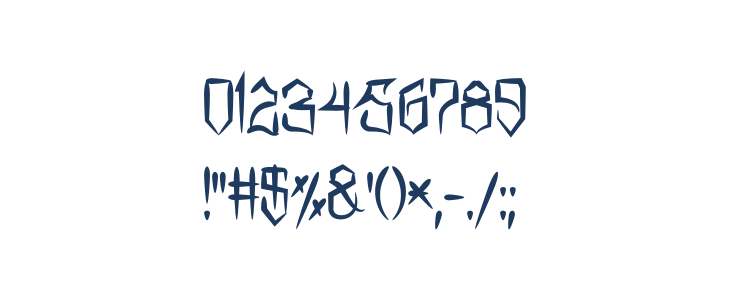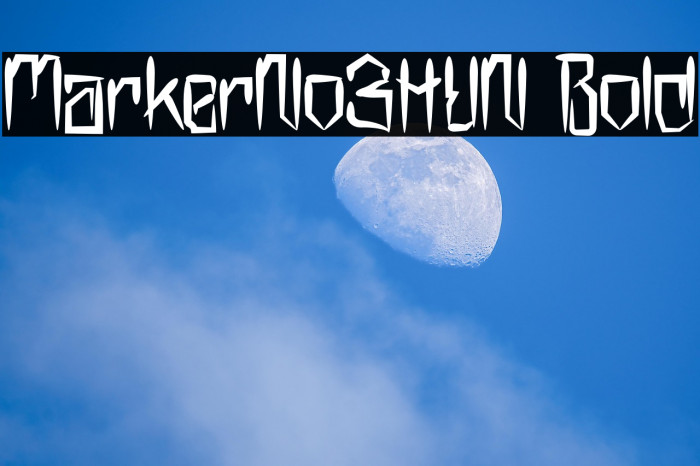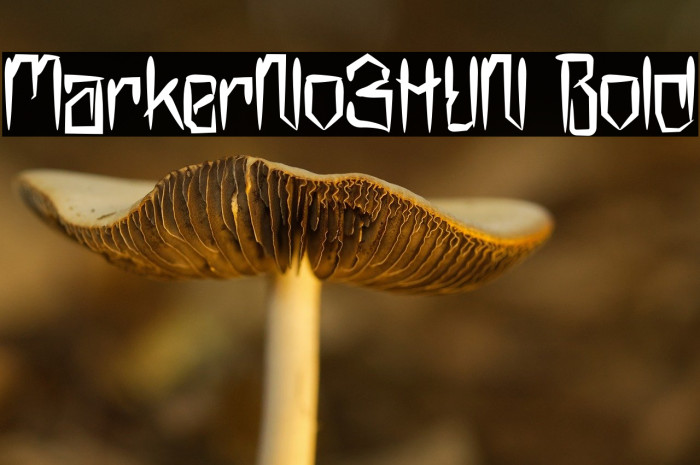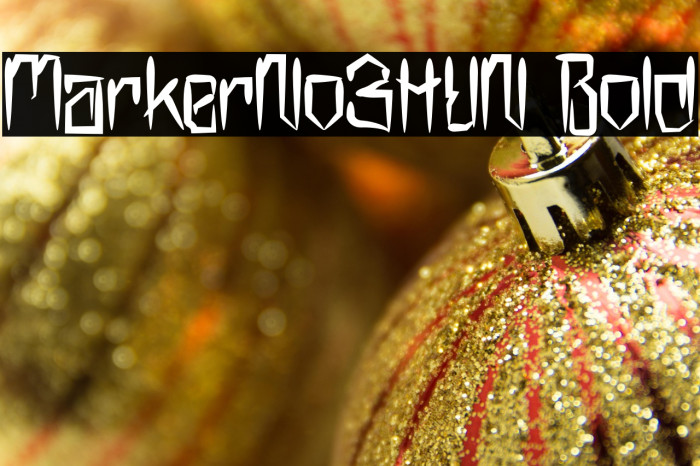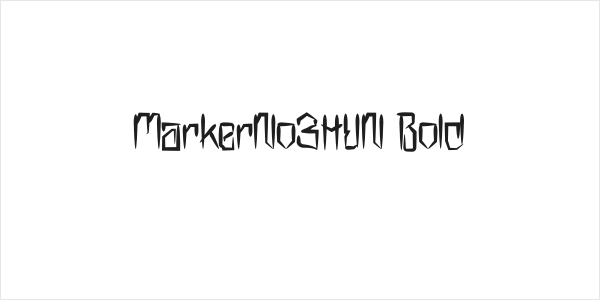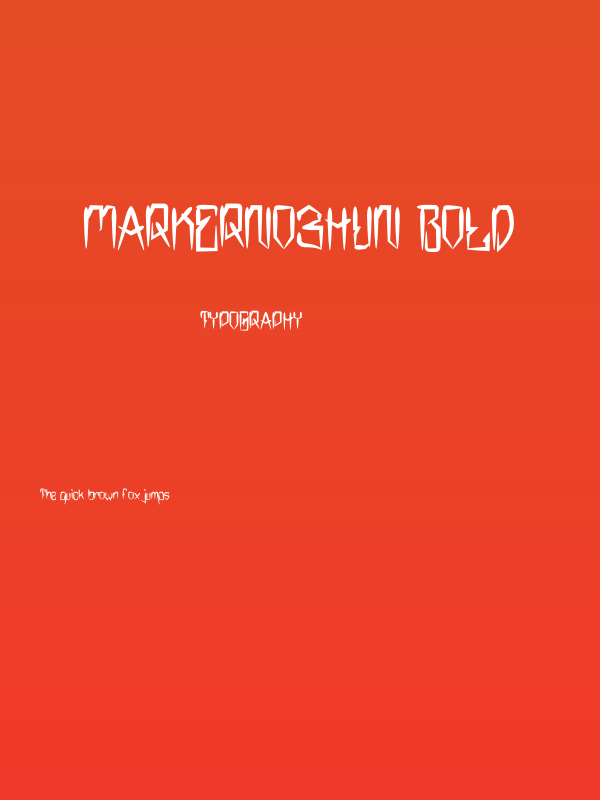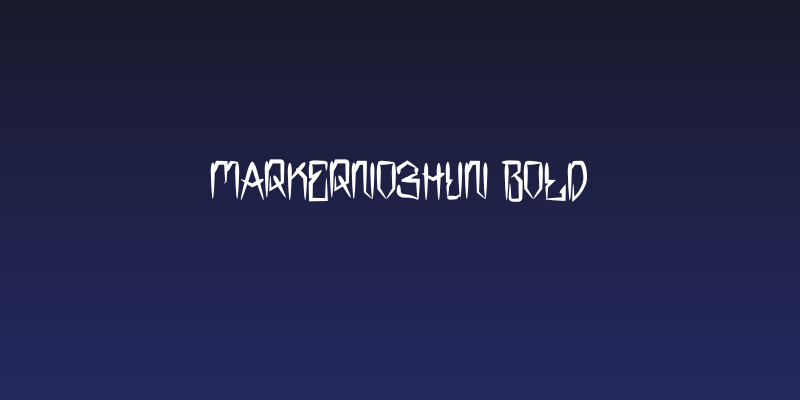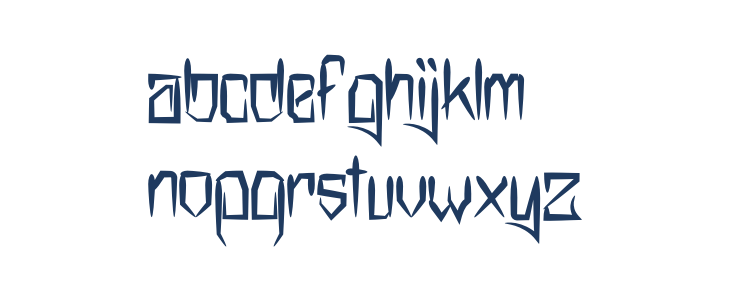
MarkerNo3HUN Bold Font
MarkerNo3HUN Bold Description
This font features a bold, angular design with sharp edges and a distinct geometric style. The uppercase letters are particularly striking, with a strong presence and unique character shapes that give off a modern, edgy vibe. The lowercase letters maintain the angular theme but are slightly more subdued, providing a nice contrast to the uppercase. Numbers and special characters follow the same design principles, ensuring consistency across all glyphs. The overall appearance is bold and attention-grabbing, making it suitable for projects that require a strong visual impact.